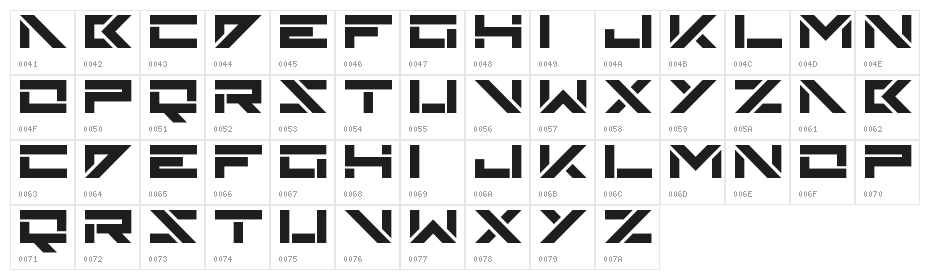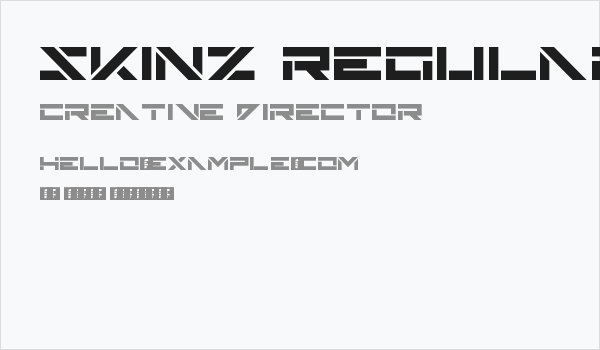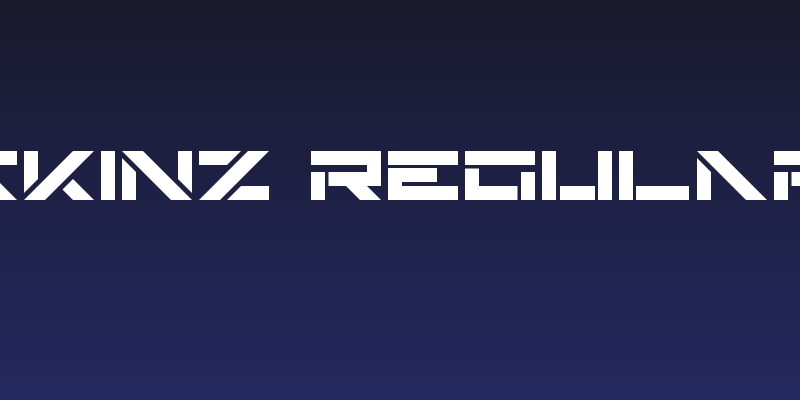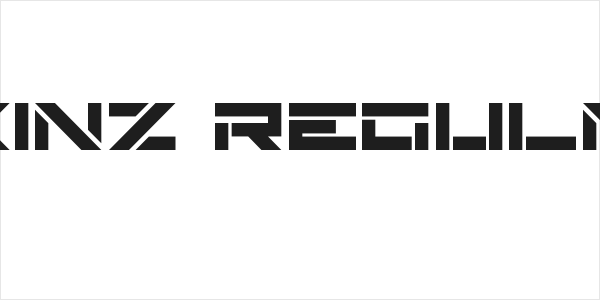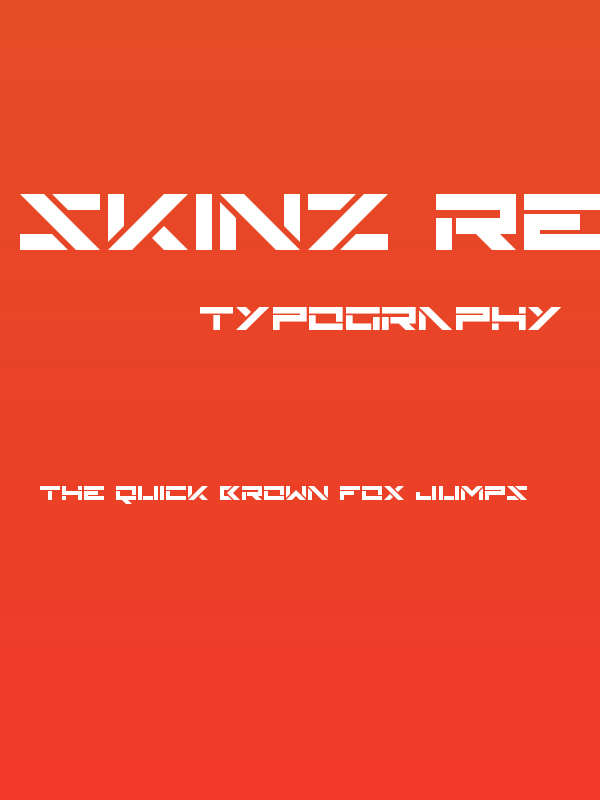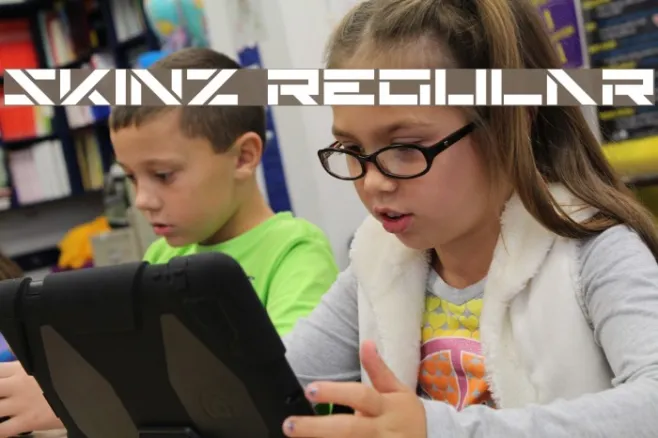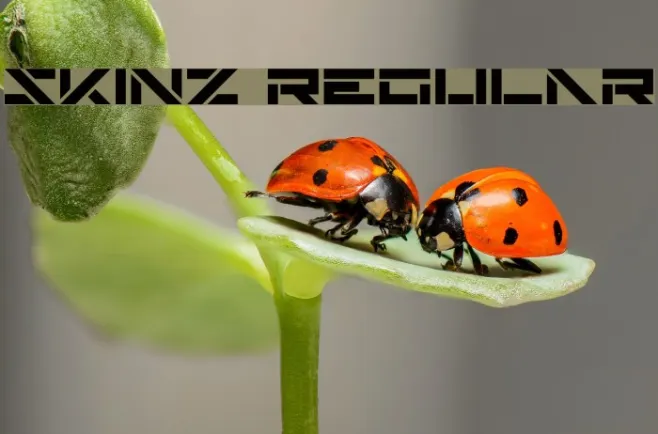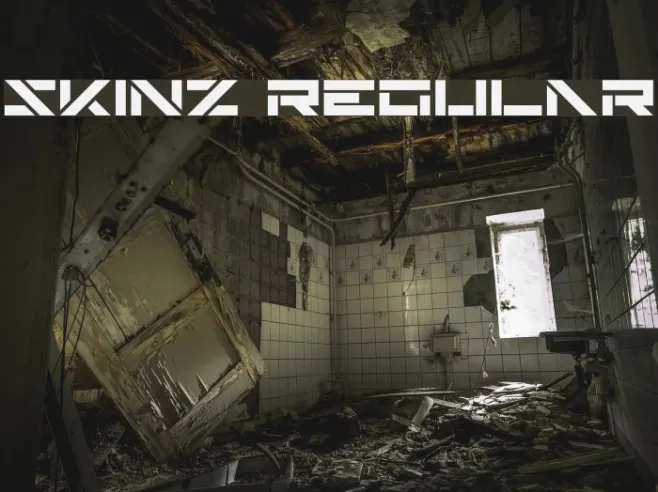
Skinz Regular Font
Skinz Regular Description
This font features a bold, geometric style with a futuristic and edgy appearance. The characters are constructed with sharp angles and a stencil-like design, giving it a distinct, modern look. The uppercase letters are particularly striking, with a uniform height and consistent angular cuts that create a cohesive visual flow. The lowercase letters maintain the same geometric theme, ensuring readability while adding a unique flair. Numbers and special characters follow the same design principles, making this font versatile for various applications. Its boldness and distinct style make it ideal for attention-grabbing designs.
| Proposed Projects | Ideal for sci-fi themed projects, video game titles, posters, and branding that requires a modern, edgy look. |